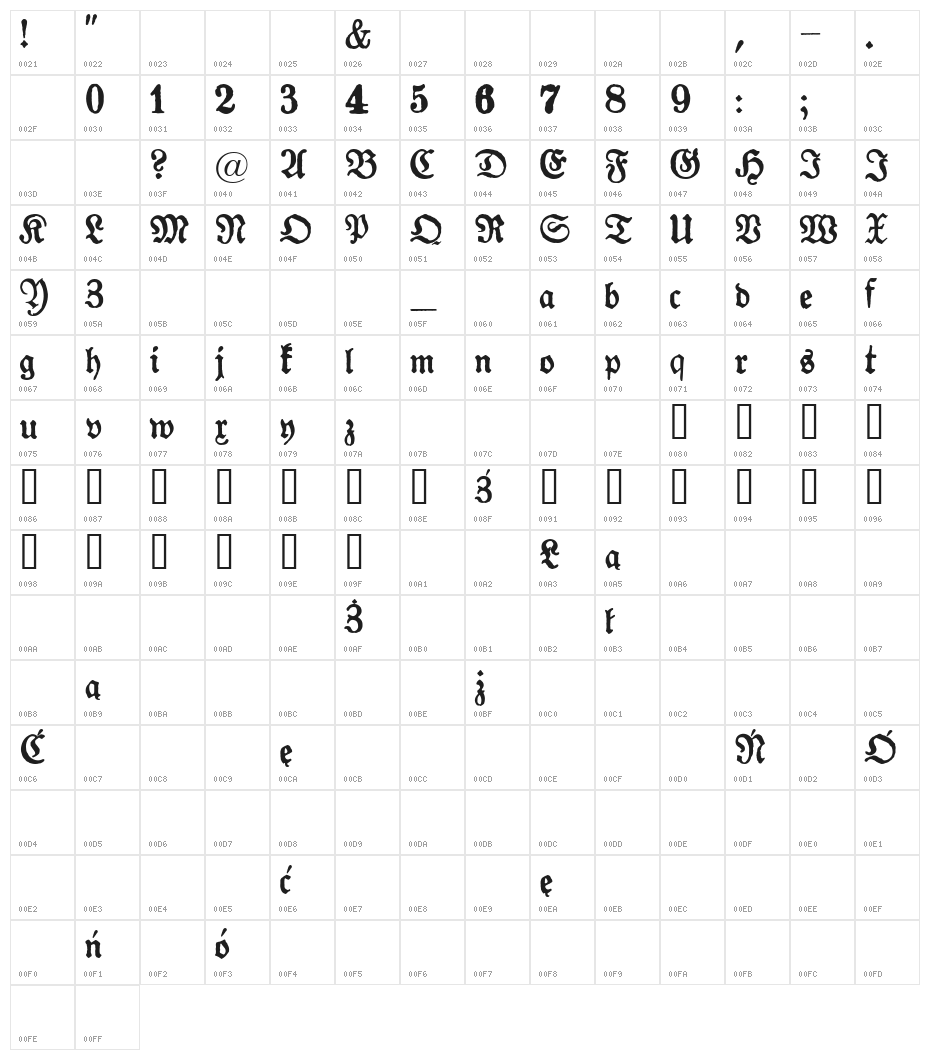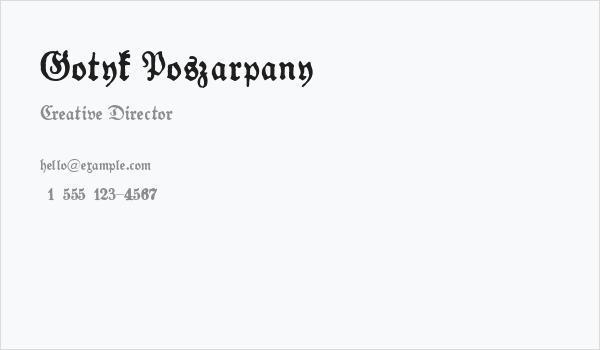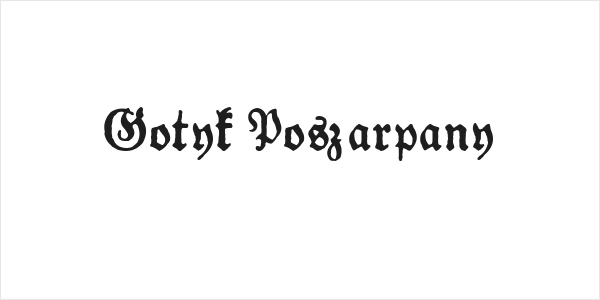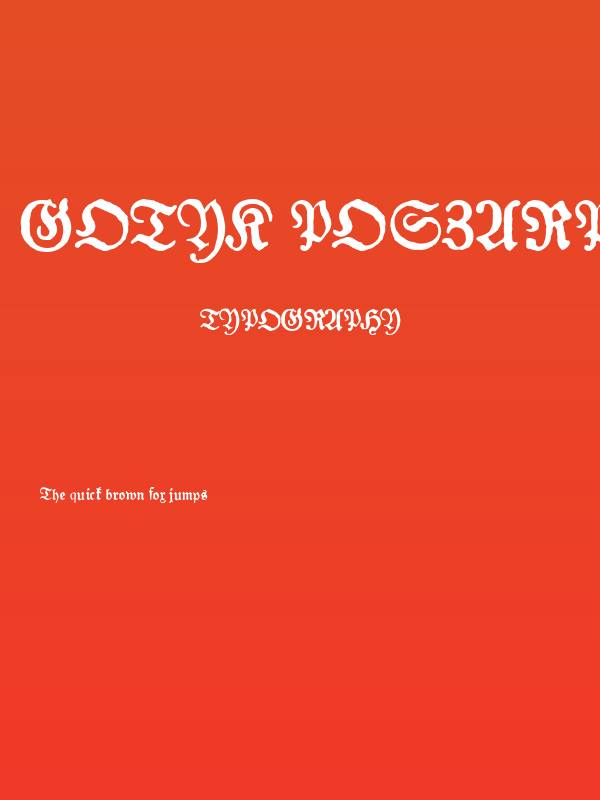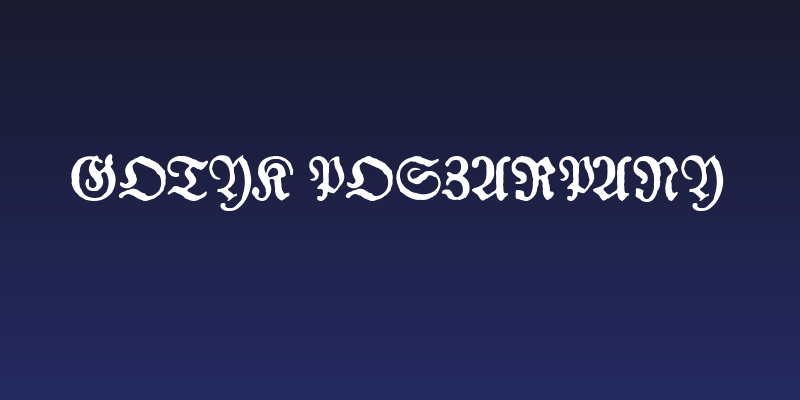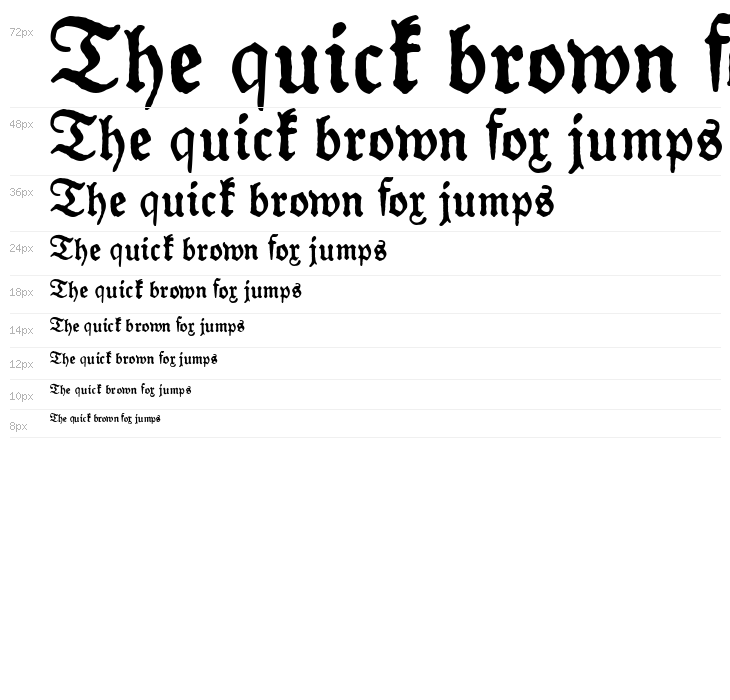
Gotyk Poszarpany Font
This font exhibits a traditional blackletter style with intricate, sharp edges and a slightly distressed appearance. The uppercase letters are ornate and feature elaborate curves and flourishes, while the lowercase letters maintain a bold and robust structure. The numerals are consistent with the overall style, presenting a strong and impactful look. Special characters are designed to complement the gothic aesthetic, adding to the font's dramatic and historical feel. The font's unique characteristics make it suitable for projects that require a medieval or vintage touch.
Overall StyleVintage
Use CaseLogos, Headlines, Decorative text
Proposed ProjectsIdeal for historical documents, medieval-themed designs, book covers, posters, and branding that requires a vintage or gothic touch.